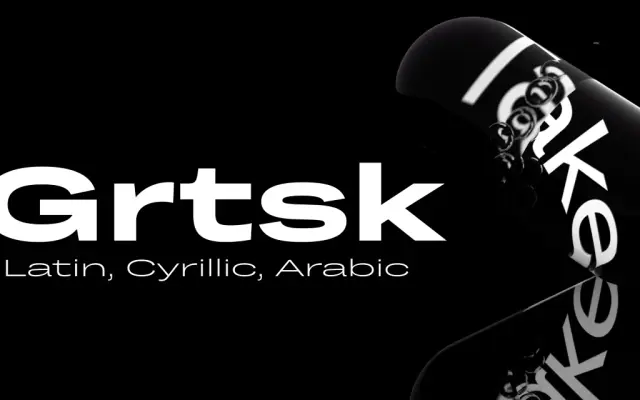
A 126-style grotesque superfamily from Black Foundry spanning seven widths named after metric prefixes, seven weights, and 15-degree slants and back-slants, with a companion variable font.
Built across seven widths from Zetta (narrowest) to Mega (widest), each width carries seven weights from Thin to Bold, each available in upright, slant and back-slant cuts. The design draws on 19th and 20th century grotesque sources, mixing humanist warmth with rational structure to keep it usable across both expressive and formal contexts. A single variable font consolidates weight, width and slant axes for those working in digital environments.
Described as inspired by 19th and 20th century grotesques, blending humanist and rational forms. The superfamily structure, with its range of widths and weights, is characteristic of the grotesque genre adapted for contemporary use.